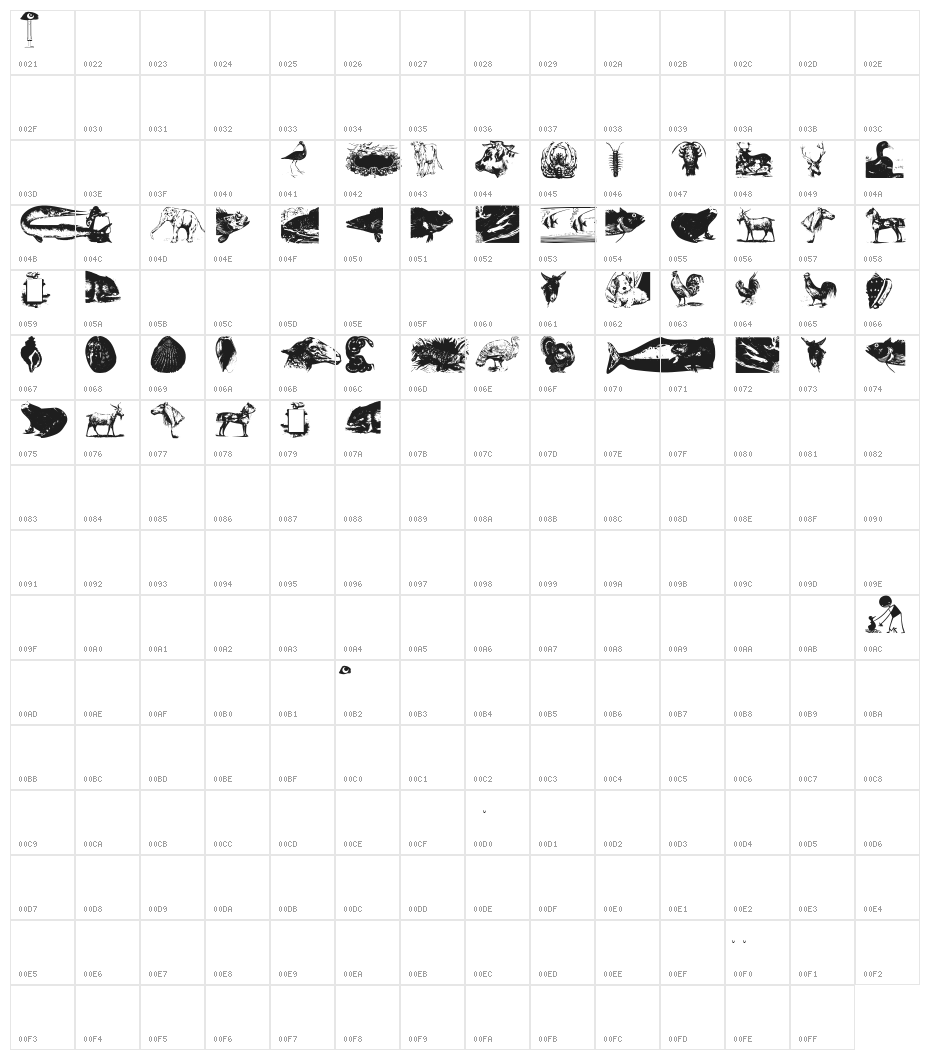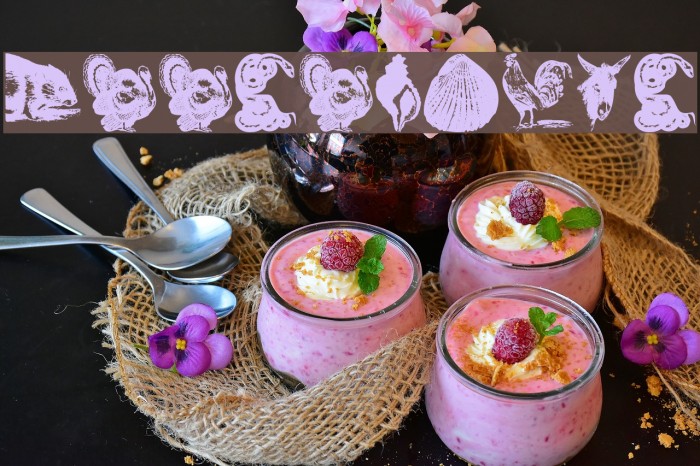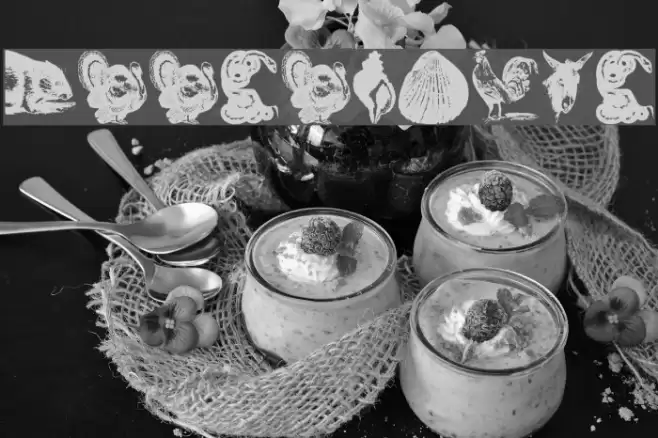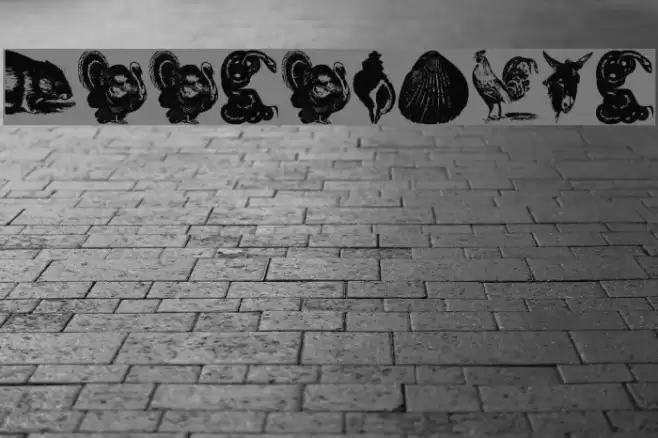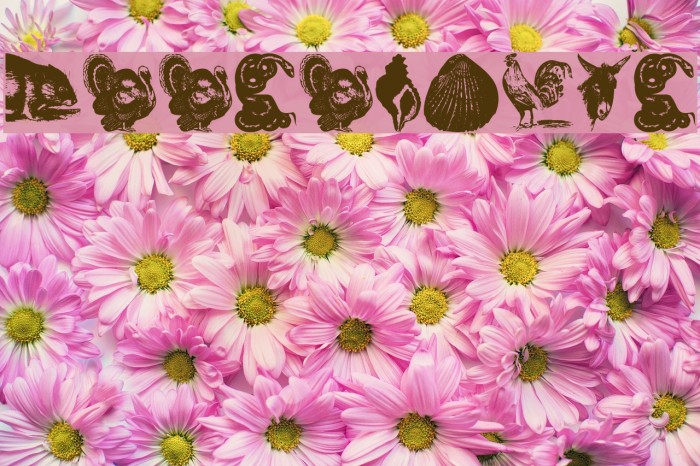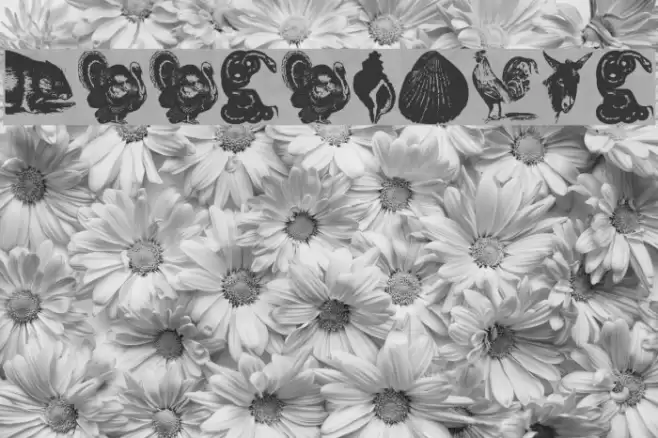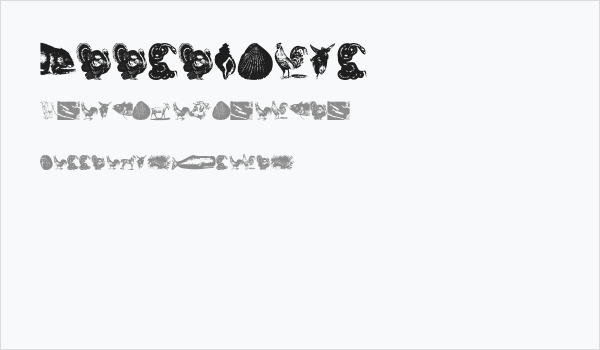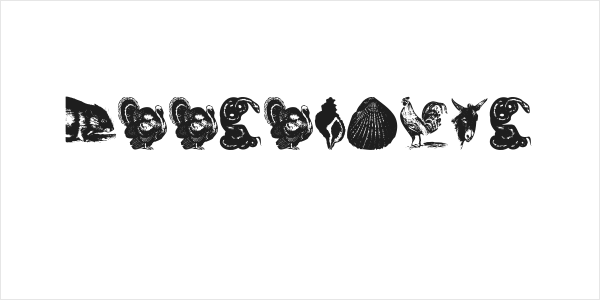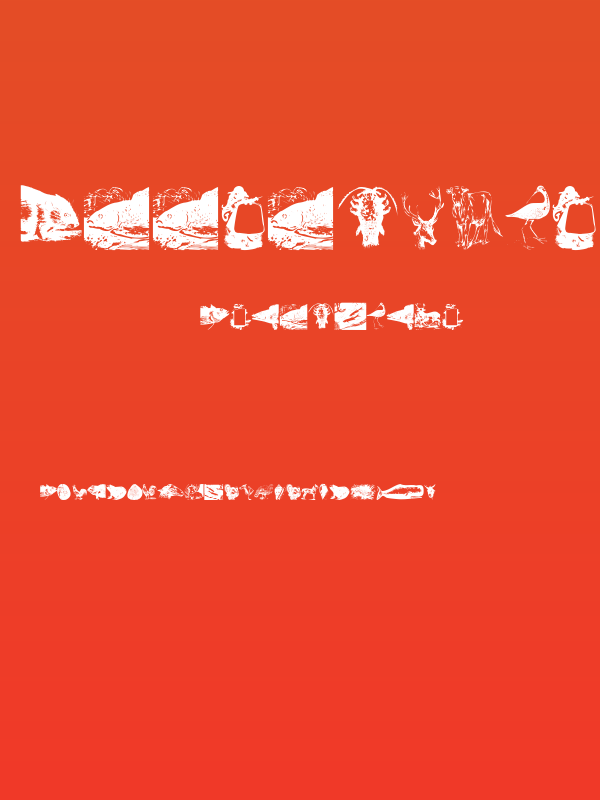
Zoological Font
Zoological Description
This unique and playful font is composed entirely of detailed animal illustrations, each representing a different letter or character. The designs are intricate, capturing the essence of each animal with precision and creativity. The font includes a wide variety of animals, from mammals and birds to fish and insects, making it a diverse and engaging typeface. The characters are well-defined and maintain a consistent style throughout, ensuring readability while adding a whimsical touch to any project. This font is perfect for creative projects that require a touch of nature and imagination.